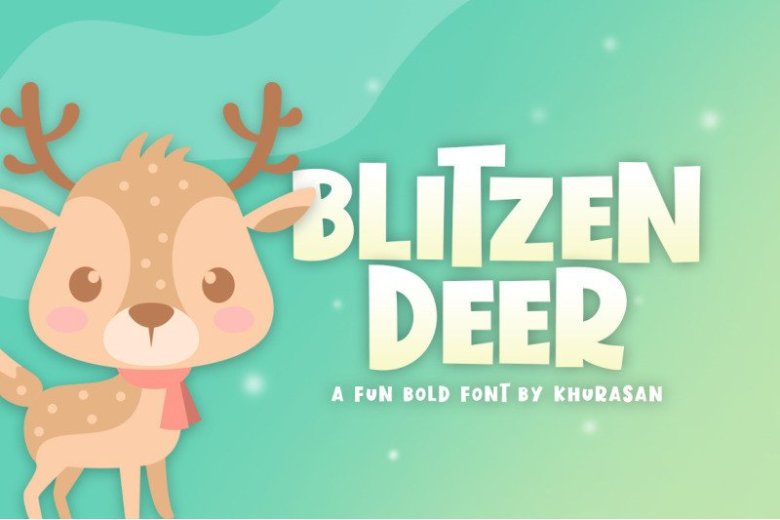
Blitzen Deer Display Font
The Blitzen Deer Display Font is a fun bold display font, fresh & modern style. Blitzen Deer Font suitable for logo, branding, greeting card, poster and any design that you create.